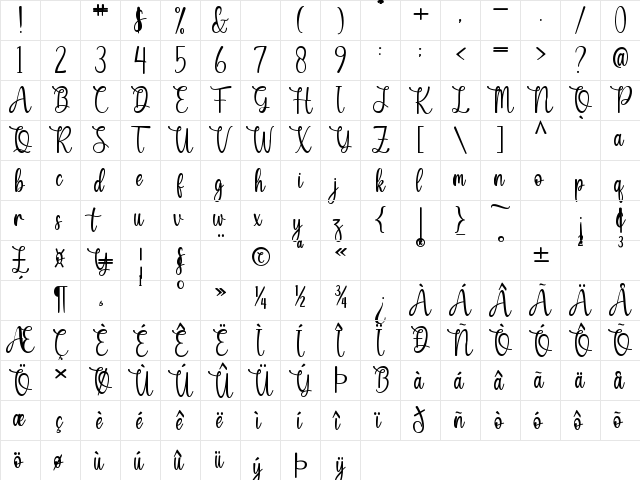
Honeybears Regular
| Foundry | Fadlilah Studio |
| Designer | Fina fadlilah |
Design Context for Honeybears Typeface
Honeybears is a composed and adaptable typeface that performs quietly and consistently across a wide range of design contexts.